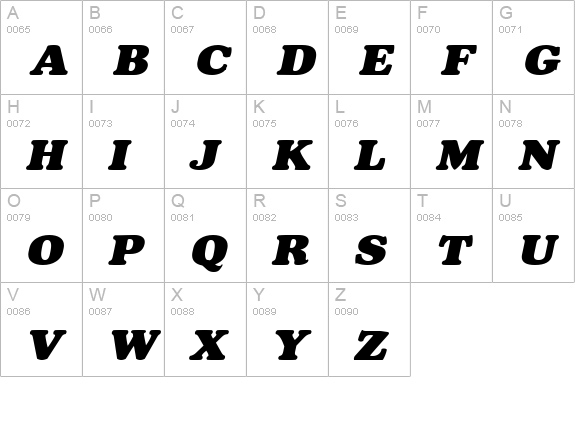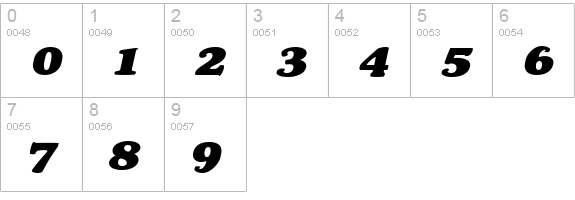
BroadsideExtended Italic Font Details
BroadsideExtended Italic is a distinctive, italic variant in the BroadsideExtended typeface family \xE2\x80\x94 well suited to design and typography projects.
BroadsideExtended Italic font is a stylish and elegant typeface that exudes sophistication and charm. The slanted design of the italic version adds a touch of flair and creativity to any project. With its elongated letterforms and unique aesthetic, this font is perfect for adding a modern twist to your designs. What sets BroadsideExtended Italic font apart is not just its striking appearance, but also the fact that it is available for free download at FontsMarket.com. This means that you can easily access this versatile font and use it in a wide range of projects without any cost. Whether you're working on branding, advertising, or graphic design, BroadsideExtended Italic font is a versatile choice that will elevate your work to the next level. Experience the beauty and versatility of BroadsideExtended Italic font today by downloading it for free at FontsMarket.com. Elevate your designs with this eye-catching typeface and make a lasting impression on your audience.